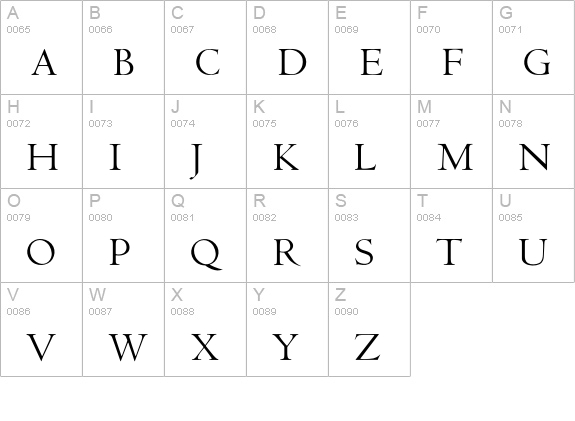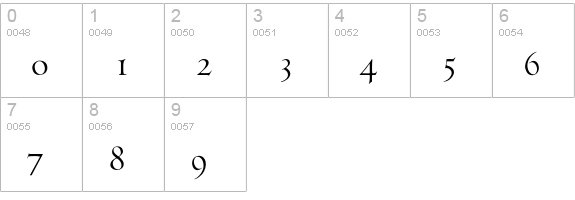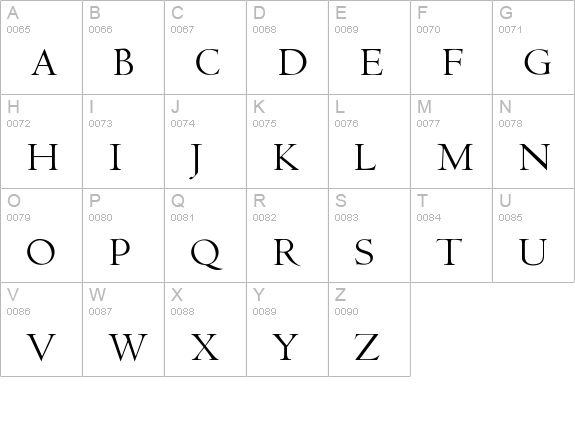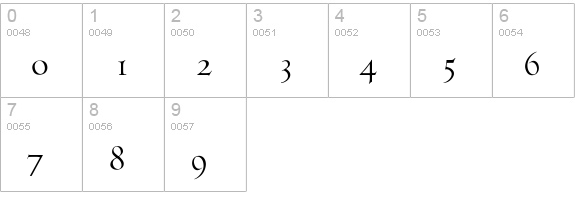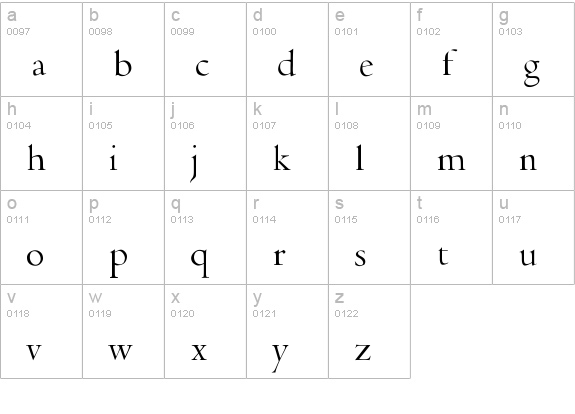
Armand Font Details
Armand font is a versatile and elegant typeface that exudes sophistication and charm. With its classic yet modern design, Armand is perfect for a wide range of projects, from branding to editorial design. The clean lines and balanced proportions of this font make it highly readable and visually appealing. What makes Armand font even more appealing is that it is completely free to download at FontsMarket.com. This means that you can easily access and use this beautiful typeface for all your creative endeavors without having to worry about any costs. Whether you're working on a logo, website, poster, or any other design project, Armand font is sure to make a stylish statement. Don't miss out on the opportunity to enhance your designs with this stunning font - download Armand today for free at FontsMarket.com!